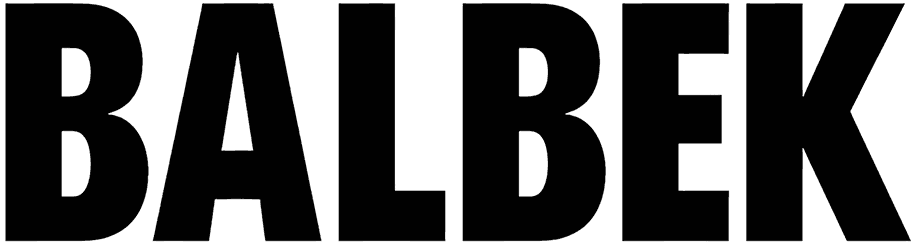
Mind The Caps Font
Do you require a modest and bold appearance for your designs? Mind The Caps can be a suitable choice for you. Although this sans serif font doesn’t have lowercase and numbers, it would make your modern design salient and can attract your viewers’ attention. Just set Mind The Caps on words in your upcoming projects, such as banners, ads, packaging, or other kinds of stuff.
Mind the Caps – DEMO VERSION
LONDON, BABY! After missing London so much I’ve decided to pay tribute to the infamous “Mind the Gap” Sign, but this time it’s all about CAPS.
Enjoy a FREE demo for our new & ALL-CAPS display font! Its smoothness and rounded edges present the font with a new, unique character. At the same time you can use the font for many ways and it’s always an eye-catcher.
Designed by: Shaped Fonts